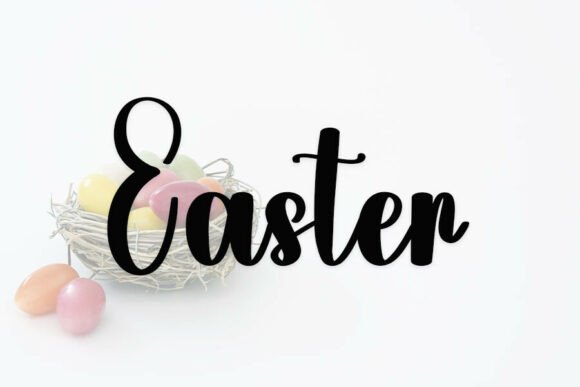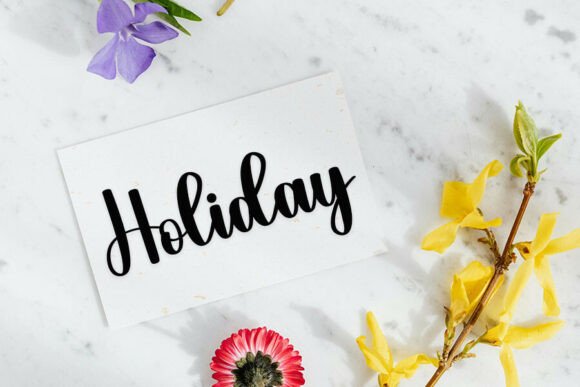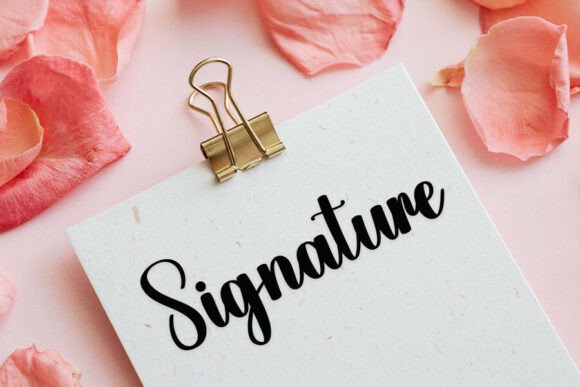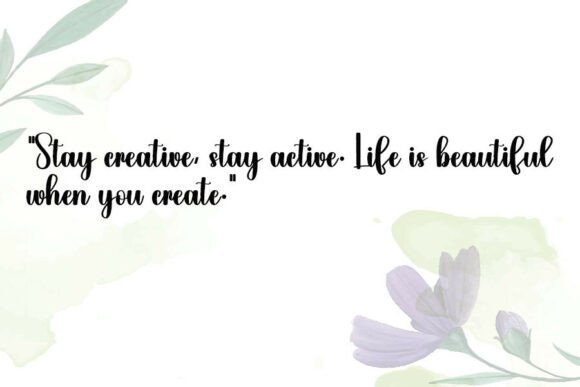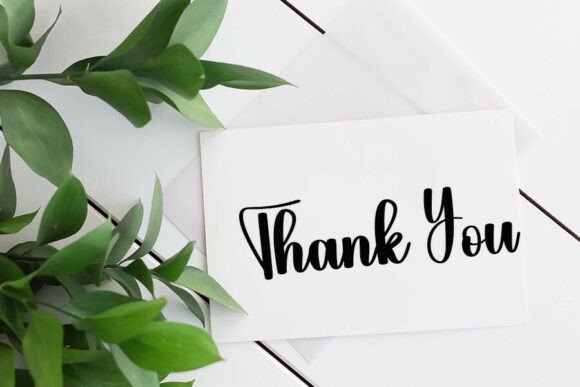
Introducing Comitment Font: The Perfect Handwritten Font for Unique Designs
In the world of typography, a well-crafted font can make all the difference in creating a lasting impression. For designers and crafters looking for a cool and unique design element, Comitment Font is an excellent choice. This delicate handwritten font is carefully crafted to add a touch of elegance and sophistication to various design projects.
What is Comitment Font?
Comitment Font is a beautiful, handwritten font designed to bring a personal touch to your designs. Its delicate and elegant strokes make it perfect for a wide range of applications, from writing letters and invitations to creating titles and packaging for food products. The font’s unique character and charm are sure to capture the attention of your audience and leave a lasting impression.
Key Features of Comitment Font
• Delicate Handwritten Style: Comitment Font boasts a delicate and elegant handwritten style that adds a touch of sophistication to any design.
• Cool and Unique Design: The font’s unique character and charm make it stand out from other fonts, ensuring your designs will be noticed.
• Versatile: Comitment Font can be used for a wide range of applications, including letters, invitations, food products, titles, and more.
• Easily Readable: Despite its delicate nature, Comitment Font is easily readable, making it perfect for body text and headings.
Use Cases for Comitment Font
Comitment Font’s versatility makes it suitable for various design projects. Here are some use cases to get you started:
• Wedding Invitations: Add a touch of elegance and romance to your wedding invitations with Comitment Font.
• Food Blogging: Use Comitment Font to create beautiful titles and headings for your food blog, adding a personal touch to your recipes and cooking stories.
• Product Packaging: Comitment Font is perfect for creating labels and packaging for food products, such as artisanal cheeses, baked goods, and specialty teas.
• Stationery: Create beautiful stationery, including notebooks, journals, and greeting cards, with Comitment Font.
Tips for Using Comitment Font
To get the most out of Comitment Font, here are some tips to keep in mind:
• Pair with Other Fonts: Experiment with pairing Comitment Font with other fonts to create a unique and visually appealing design.
• Adjust Font Size: Adjust the font size to suit your design needs, ensuring Comitment Font is easily readable.
• Use for Headings and Titles: Use Comitment Font for headings and titles to add a touch of elegance and sophistication to your design.
Comitment Font is a beautiful, delicate handwritten font that can elevate your designs to the next level. Its unique character and charm make it perfect for a wide range of applications, from wedding invitations to product packaging. With its versatility and elegance, Comitment Font is sure to become a staple in your design toolkit.